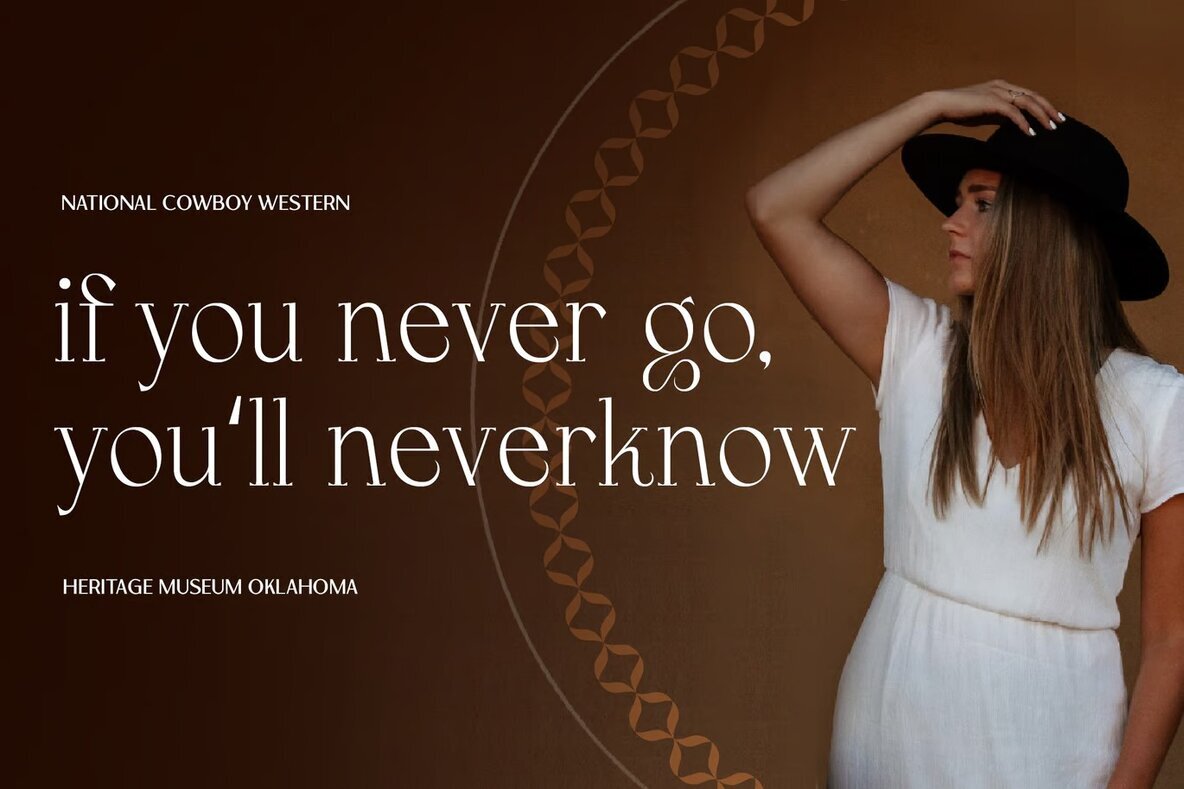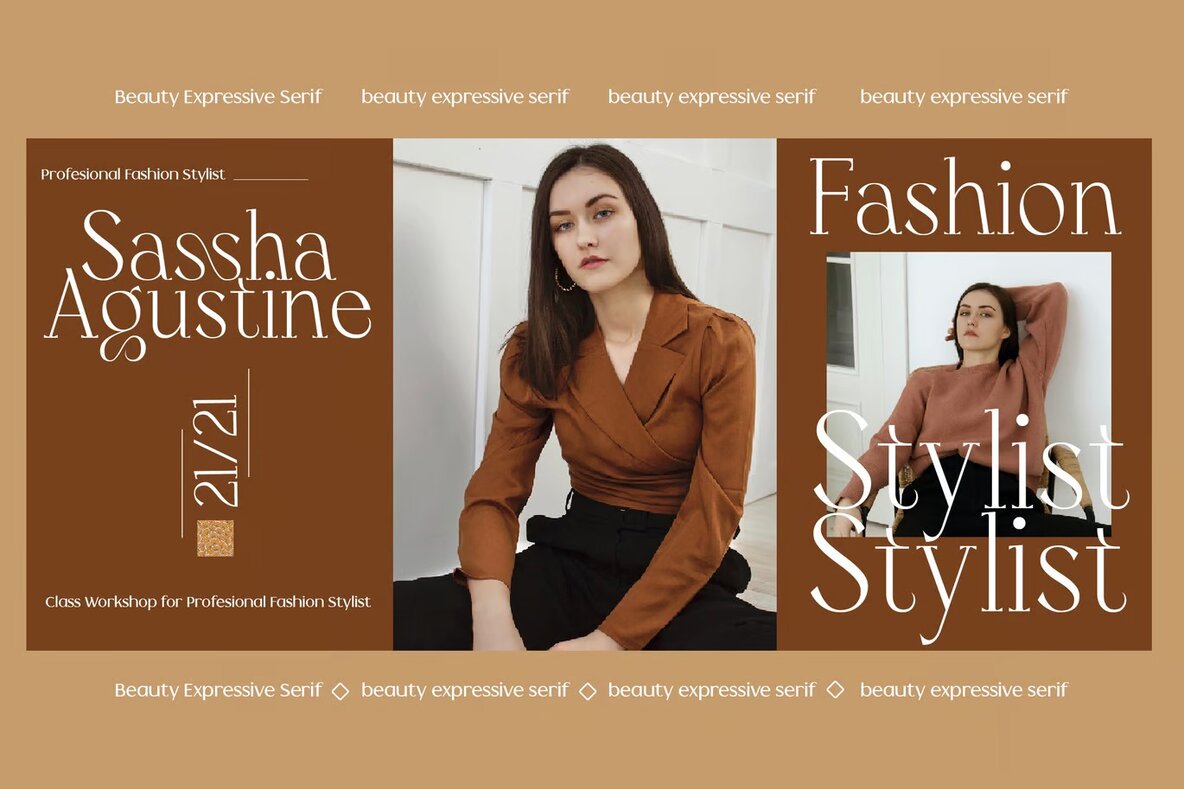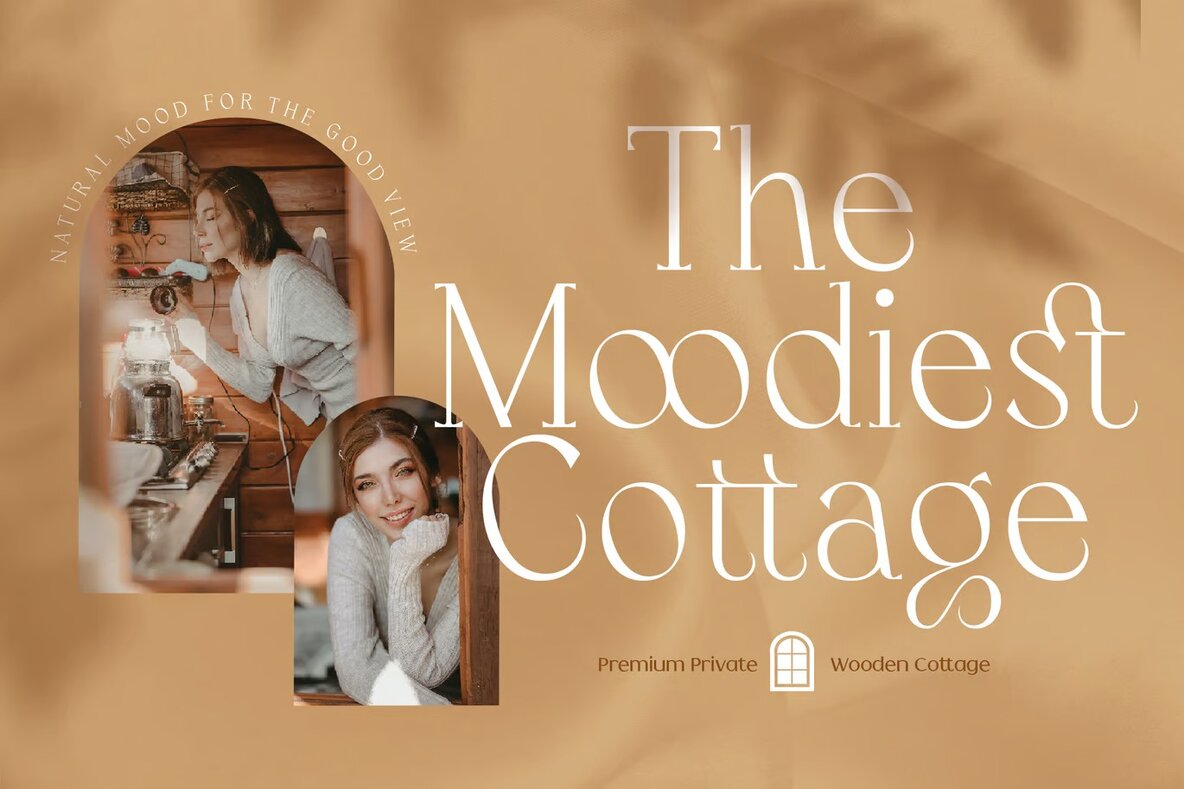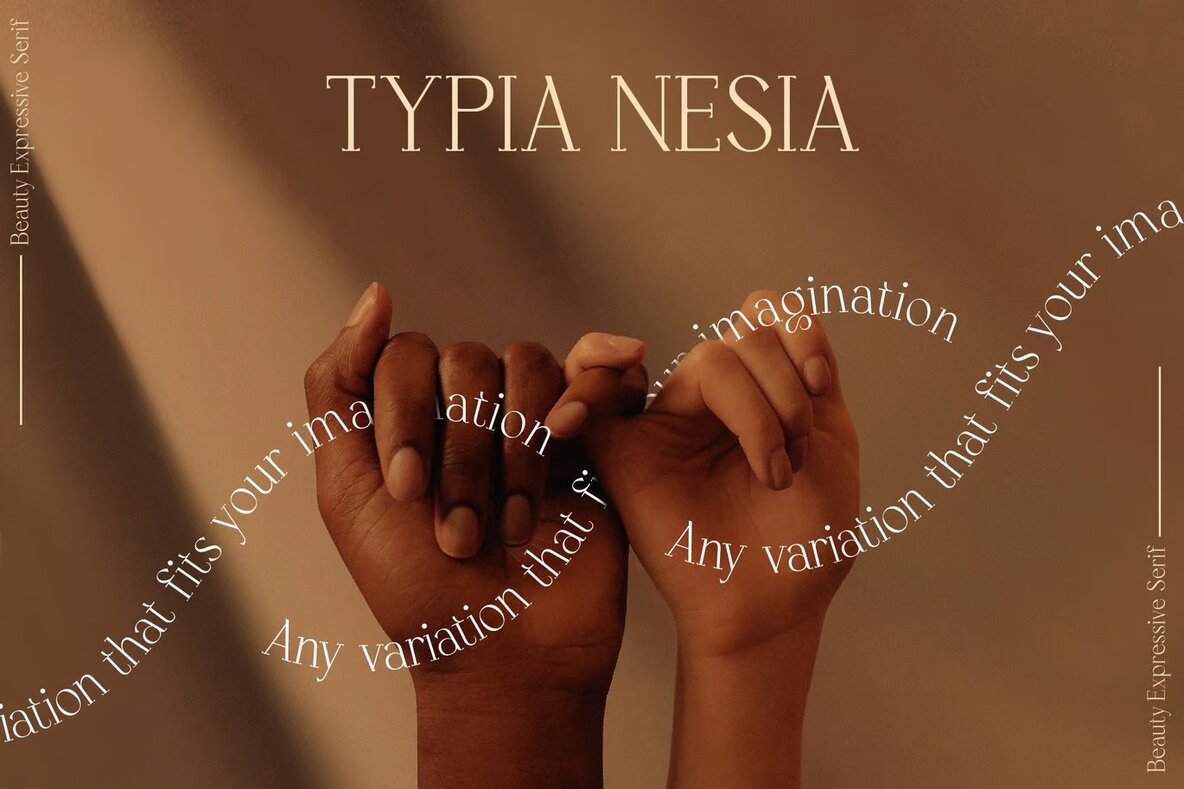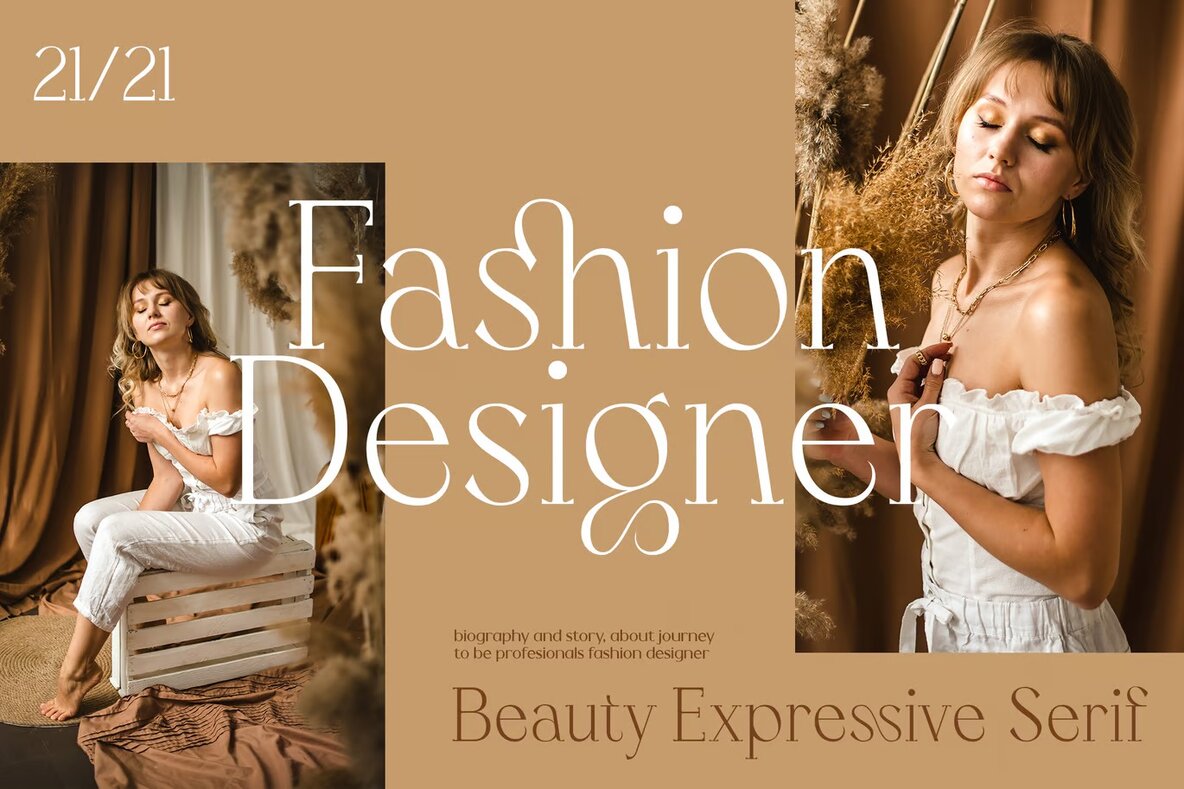
Angle Coast Font
Angle Coast Regular
Angle Coast is an expressive serif font that combines elegance with versatility, making it ideal for a variety of design applications. With its gracefully designed ligatures, this font allows you to create sophisticated typography that stands out in any project. Whether you're designing for fashion, luxury branding, or editorial purposes, Angle Coast delivers a refined aesthetic that elevates any visual presentation.
This serif font is perfect for projects that require a touch of class and sophistication. From creating distinctive logos and branding for boutiques to crafting engaging editorial layouts for women's magazines, Angle Coast fits seamlessly into a range of creative endeavors. It's equally at home in art gallery branding, museum displays, cosmetic brands, and modern advertising. Use it in stationery, blog designs, or special event invitations to add a touch of flair and elegance. Angle Coast's timeless style makes it an excellent choice for book covers, home decor, and more, ensuring your designs convey a sense of luxury and sophistication.